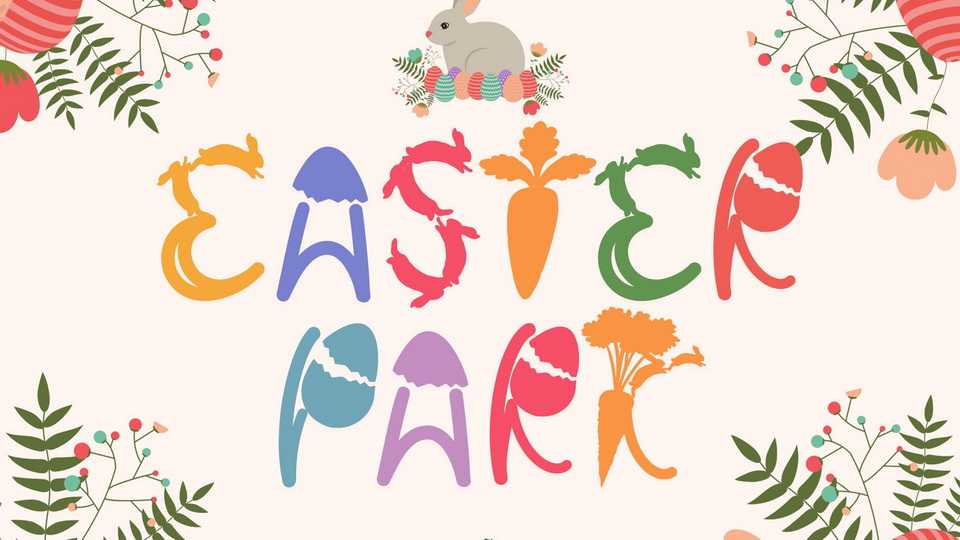
Download Easter Park font, a very cute display font and is perfect for your Easter moments. Easter Park font can be used for posters, stickers, banners, logos, covers, movie titles, and more.